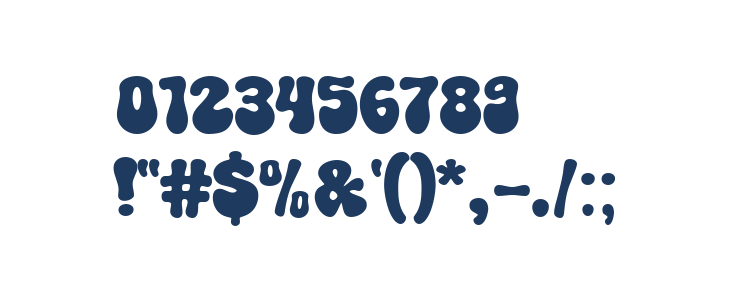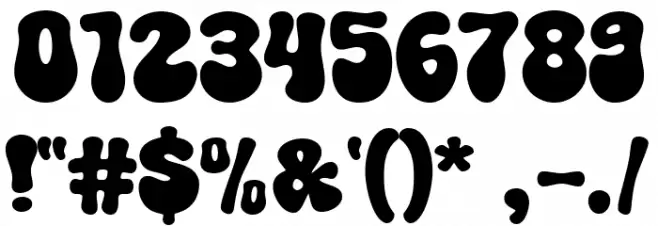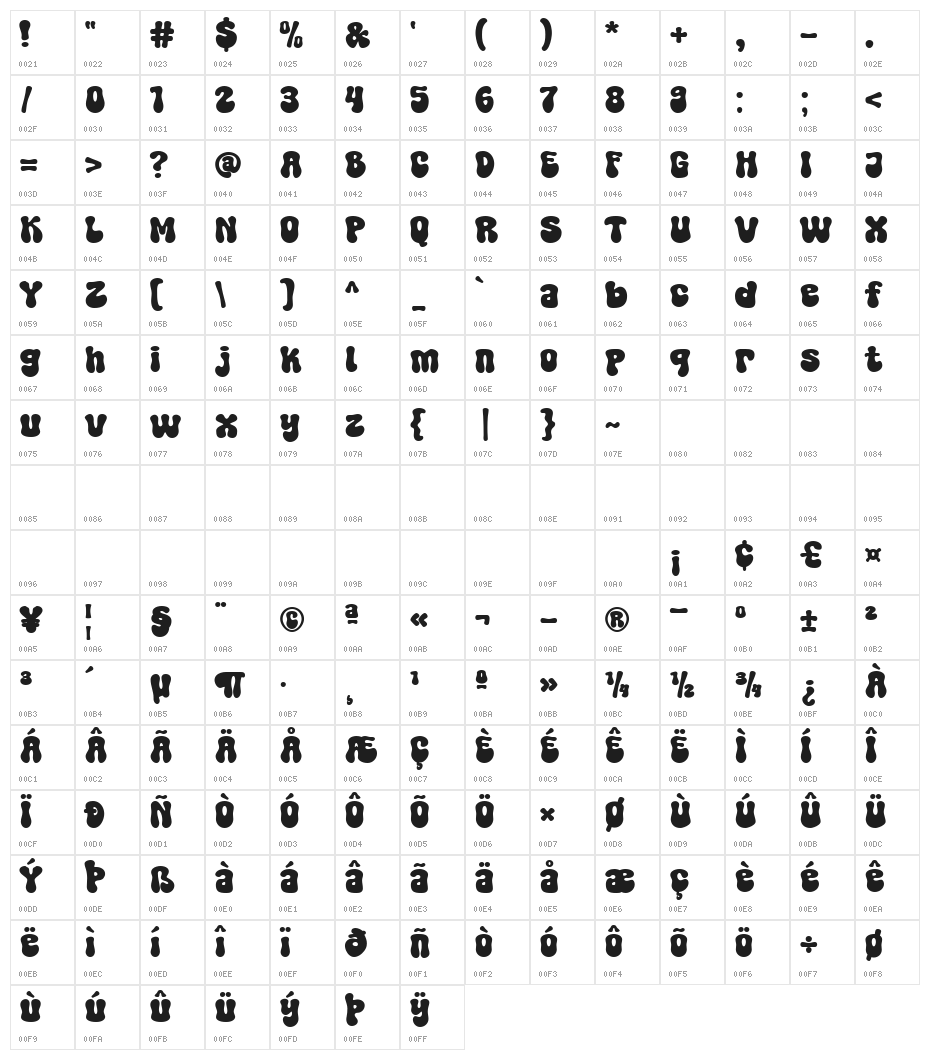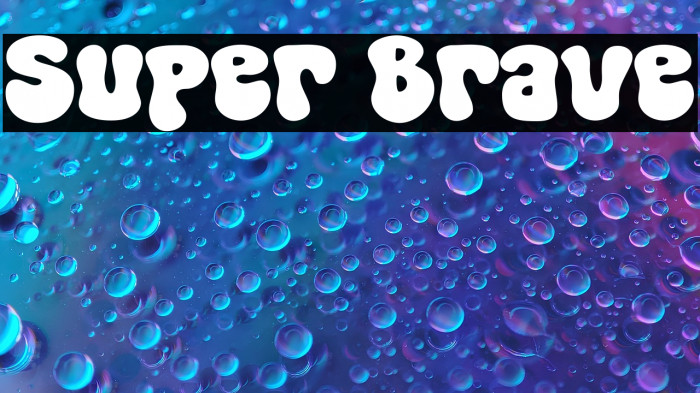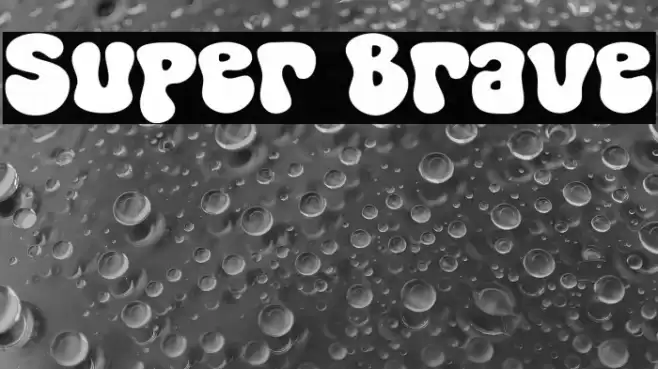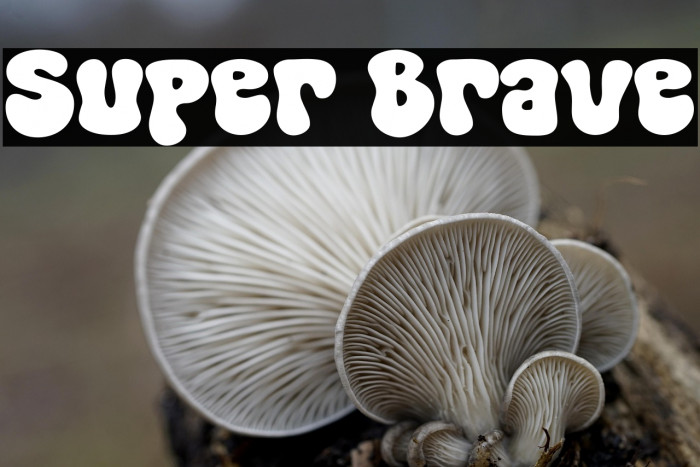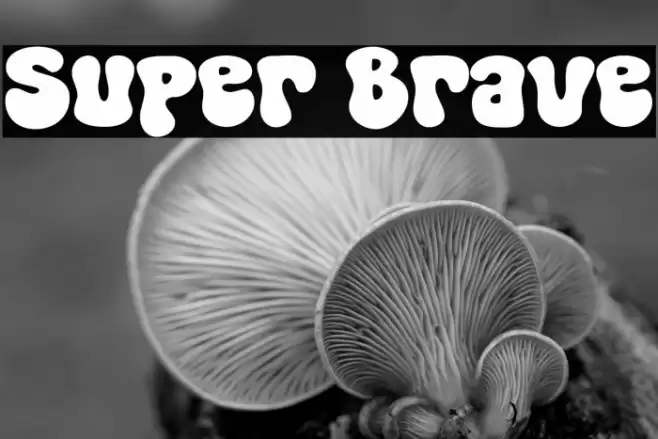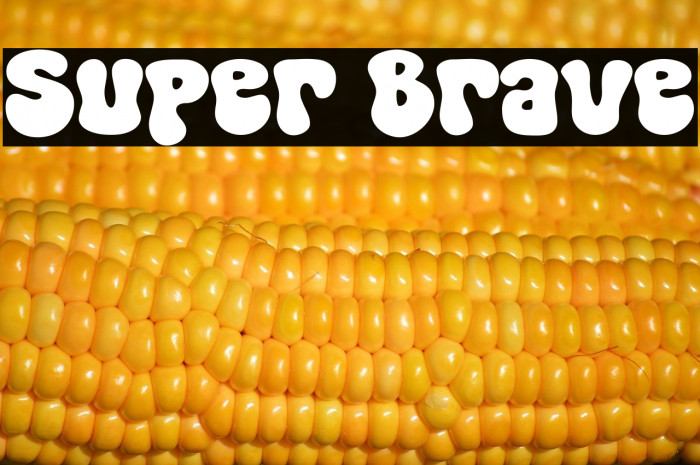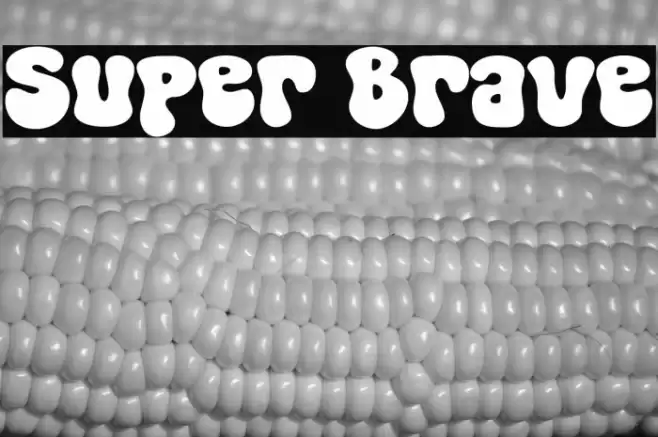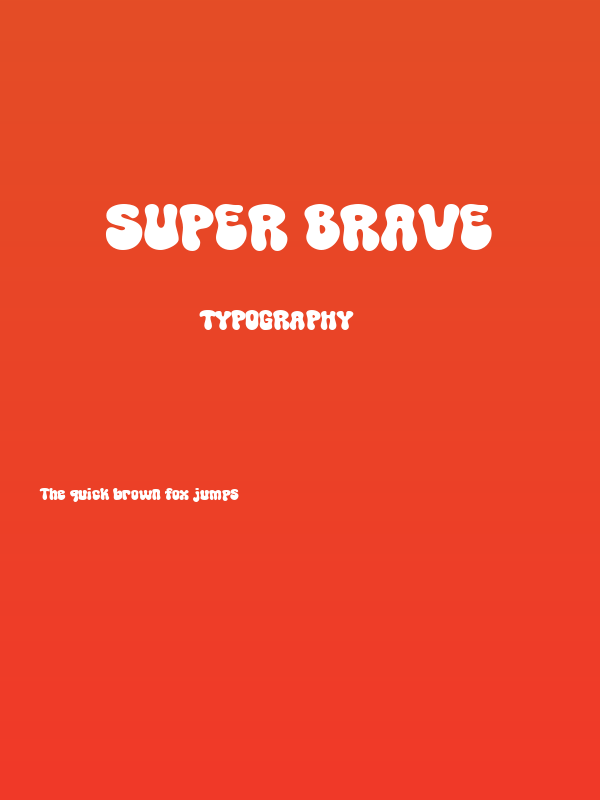
Super Brave Font
Super Brave Description
This font features a bold and playful design with thick, rounded characters that convey a sense of fun and creativity. The letters are heavily weighted, with a bubbly appearance that makes them stand out. The overall style is reminiscent of retro or psychedelic aesthetics, with a modern twist. The characters are evenly spaced, maintaining a consistent flow across both uppercase and lowercase letters. Numbers and special characters follow the same design principles, ensuring uniformity throughout. This font is ideal for projects that require a lively and eye-catching typeface.
| Overall Style | Playful, Retro, Modern |
| Proposed Projects | Perfect for posters, children's books, party invitations, and branding for playful or creative products. |